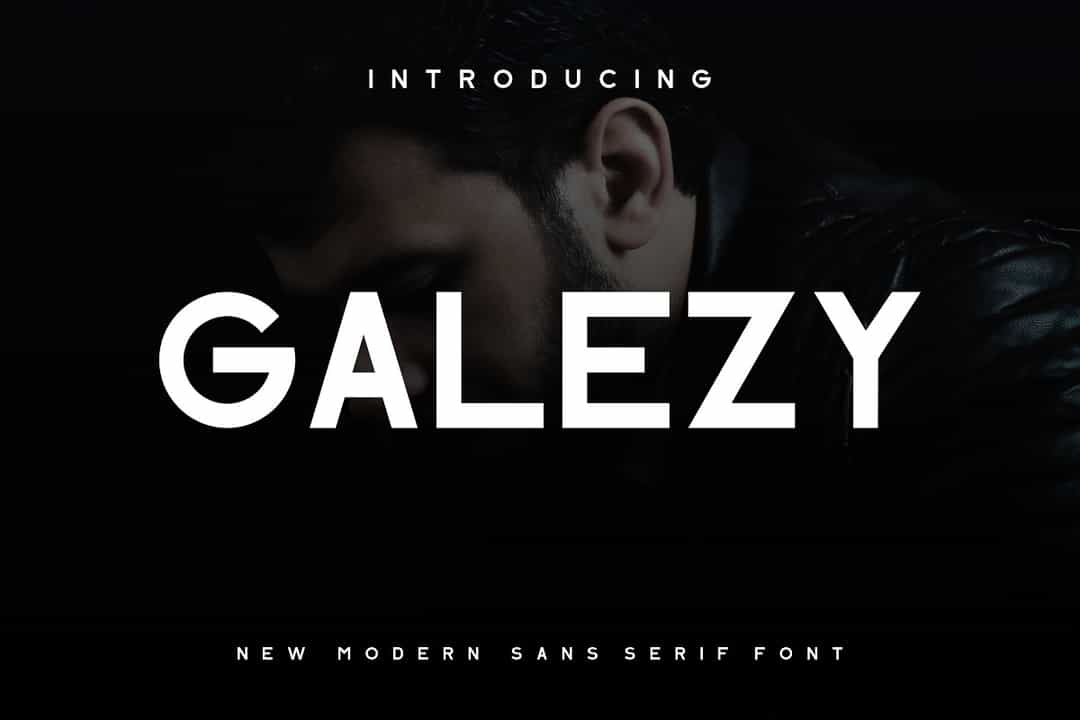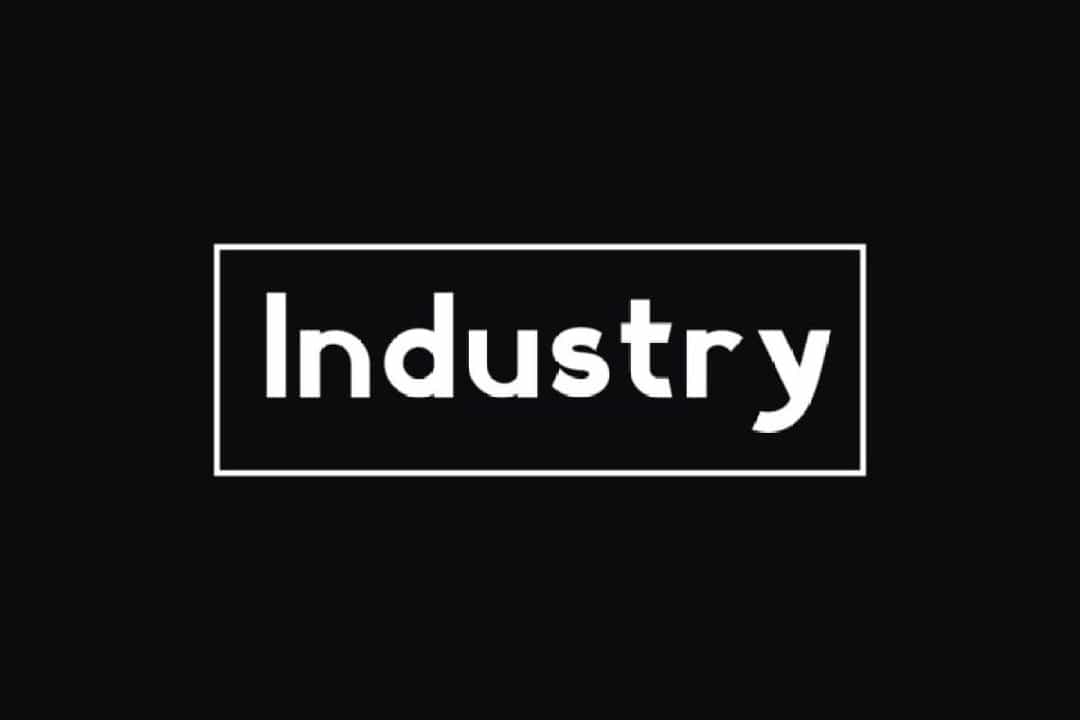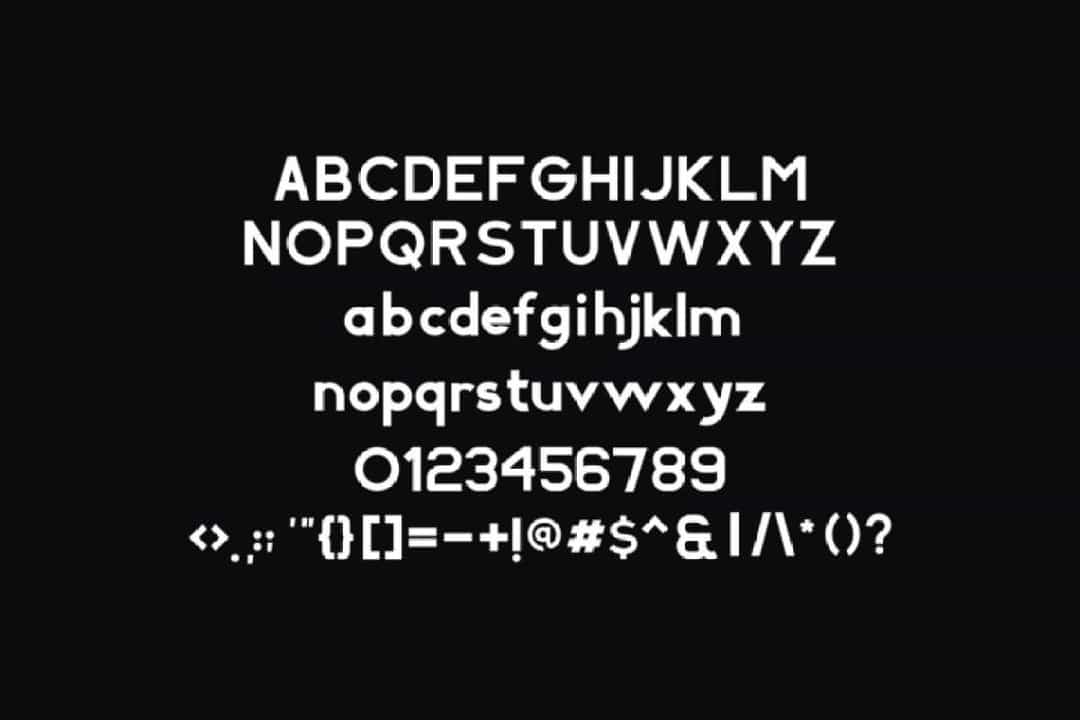
Galezy is a bold and authentic sans serif font. The font is suitable for any branding project like logo, t-shirt printing, esport, and many more. outstanding in a wide range of contexts. This font is PUA encoded which means you can access all of the glyphs and swashes with ease!